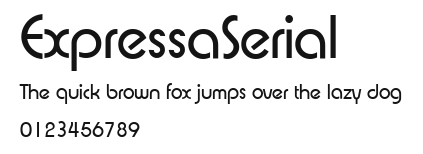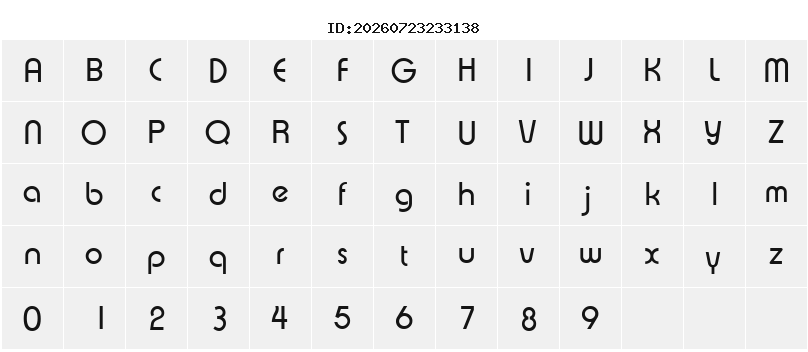
• Font Name: ExpressaSerial
• Designer: SoftMaker Software GmbH
About ExpressaSerial.ttf
ExpressaSerial.ttf is a modern, elegant sans-serif font designed for ultimate readability and visual harmony. Perfect for branding, headlines, web design, and print materials.